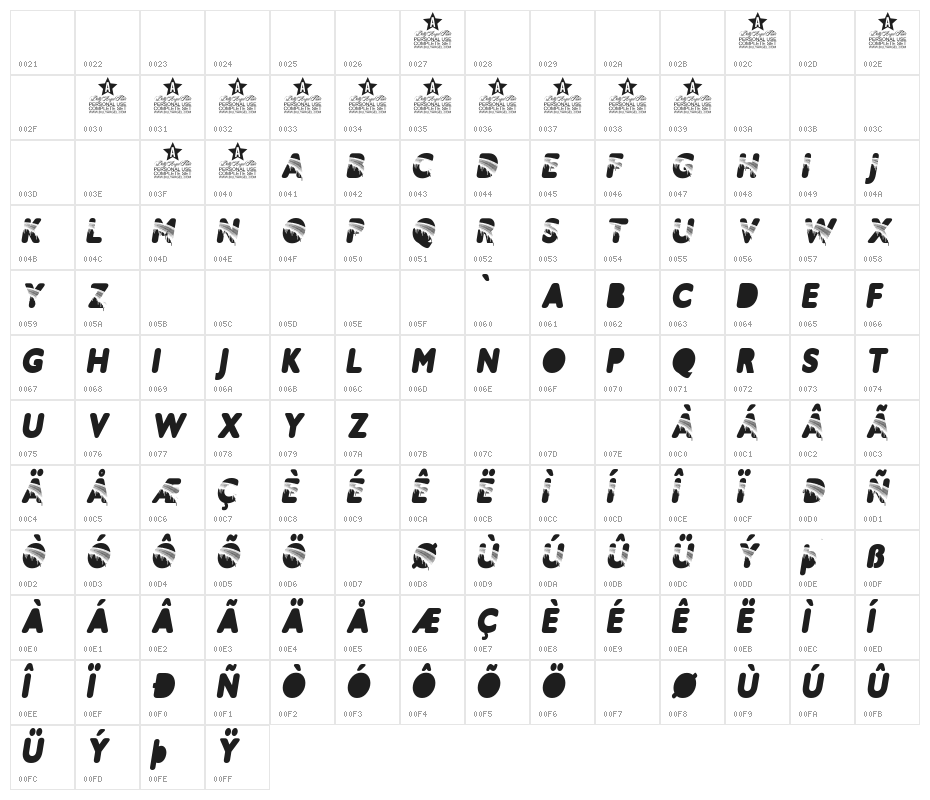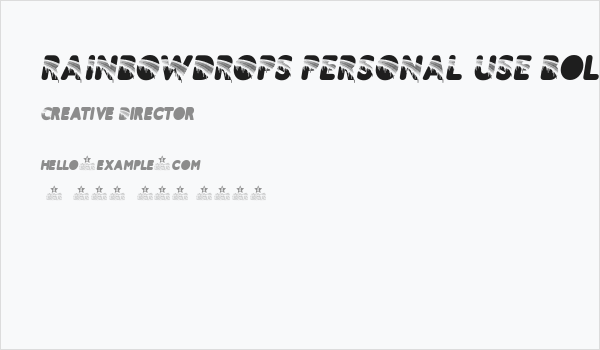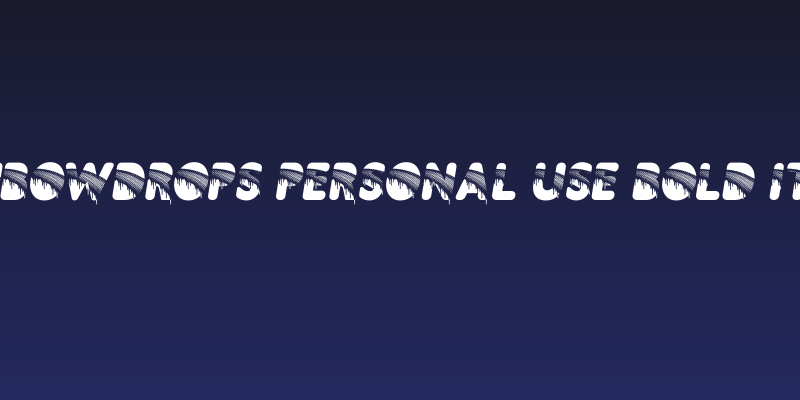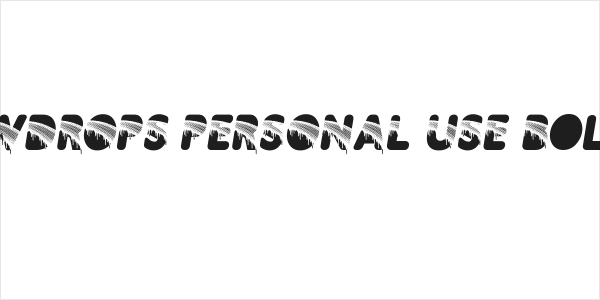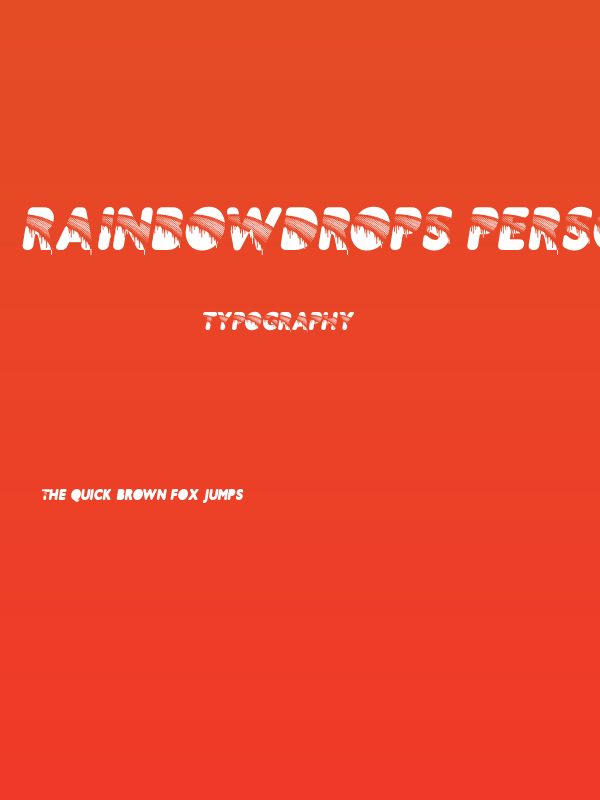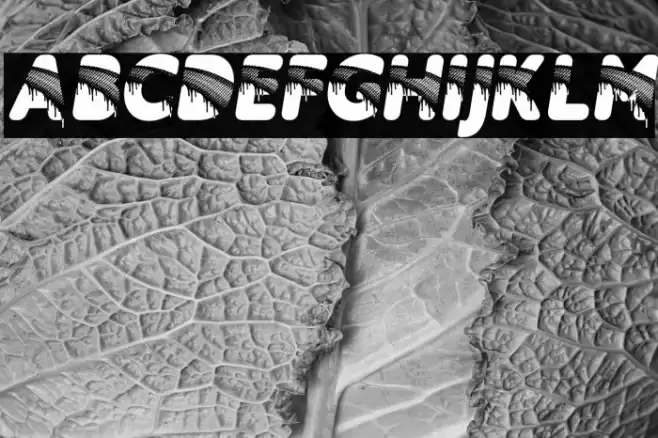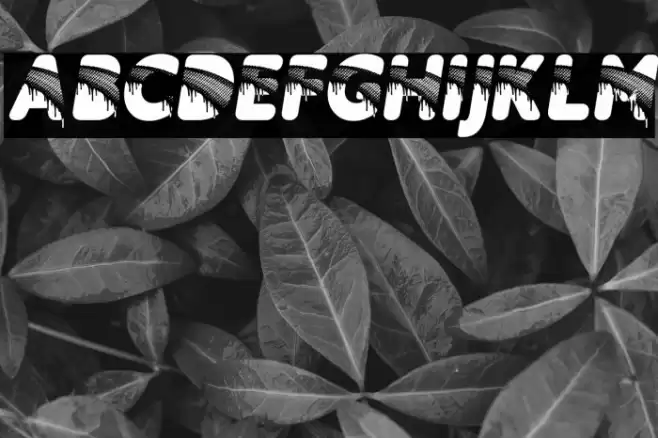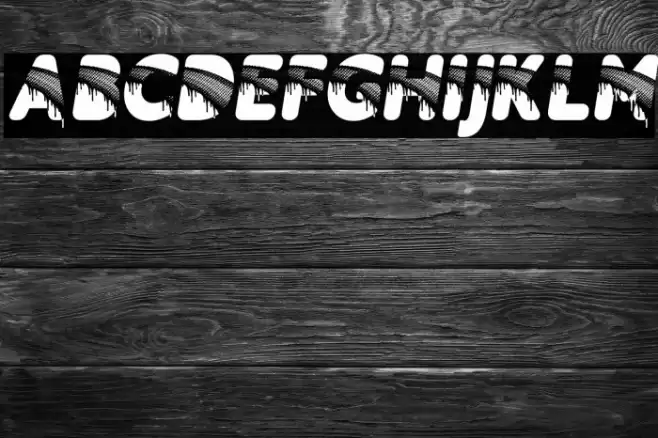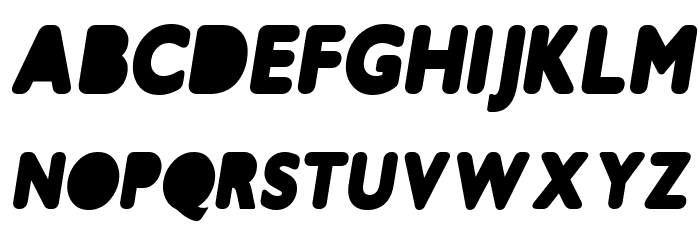
RAINBOWDROPS PERSONAL USE Bold Italic Font
RAINBOWDROPS PERSONAL USE Bold Italic Description
This font features a bold and playful design with a unique dripping effect on the uppercase letters, giving it a dynamic and eye-catching appearance. The lowercase letters are solid and rounded, maintaining a consistent boldness throughout. The font's style is both decorative and modern, making it suitable for creative and fun projects. The overall look is distinctive and artistic, with a whimsical touch that adds character to any design. The bold italic nature of the font enhances its expressive quality, making it stand out in various applications.
| Proposed Projects | Ideal for posters, children's book covers, playful branding, and creative event invitations. |